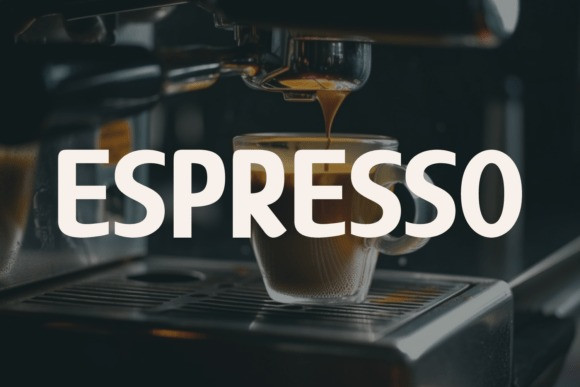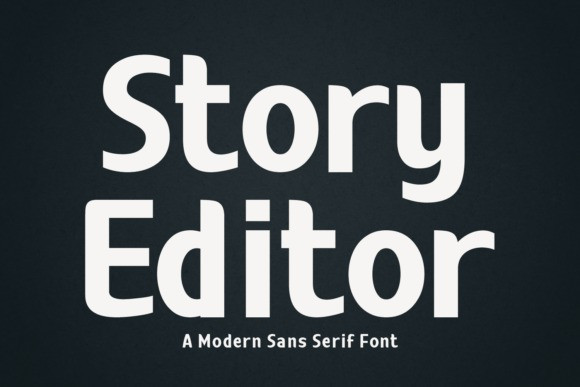
Story Editor Font
Story Editor Font a modern sans serif font. The font’s clear, friendly, and highly readable letterforms make it an excellent choice for editorial content, headlines, branding, and both display and body text.